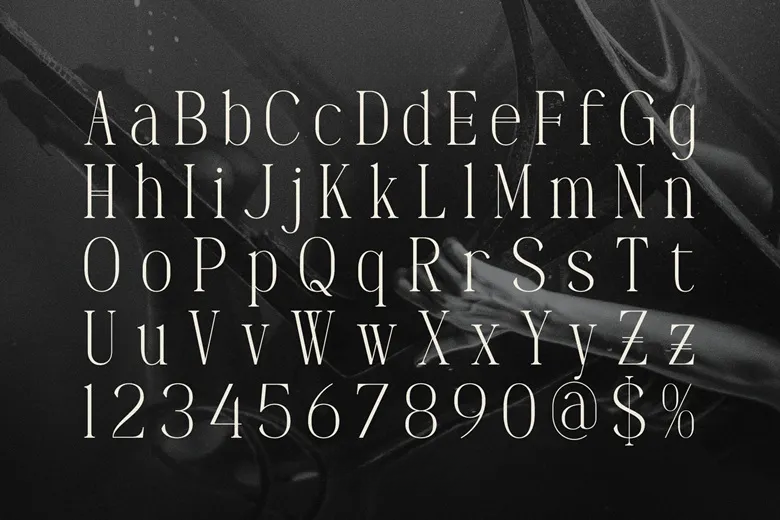
Dennya Font is a stylish and modern typeface that brings a touch of elegance to any design project. Whether you are working on branding projects, social media graphics, wedding invitations, or product packaging, it adds a sophisticated yet approachable feel.
The font is designed to capture attention without overwhelming your message, making it a favorite for designers who want both beauty and clarity in their work.